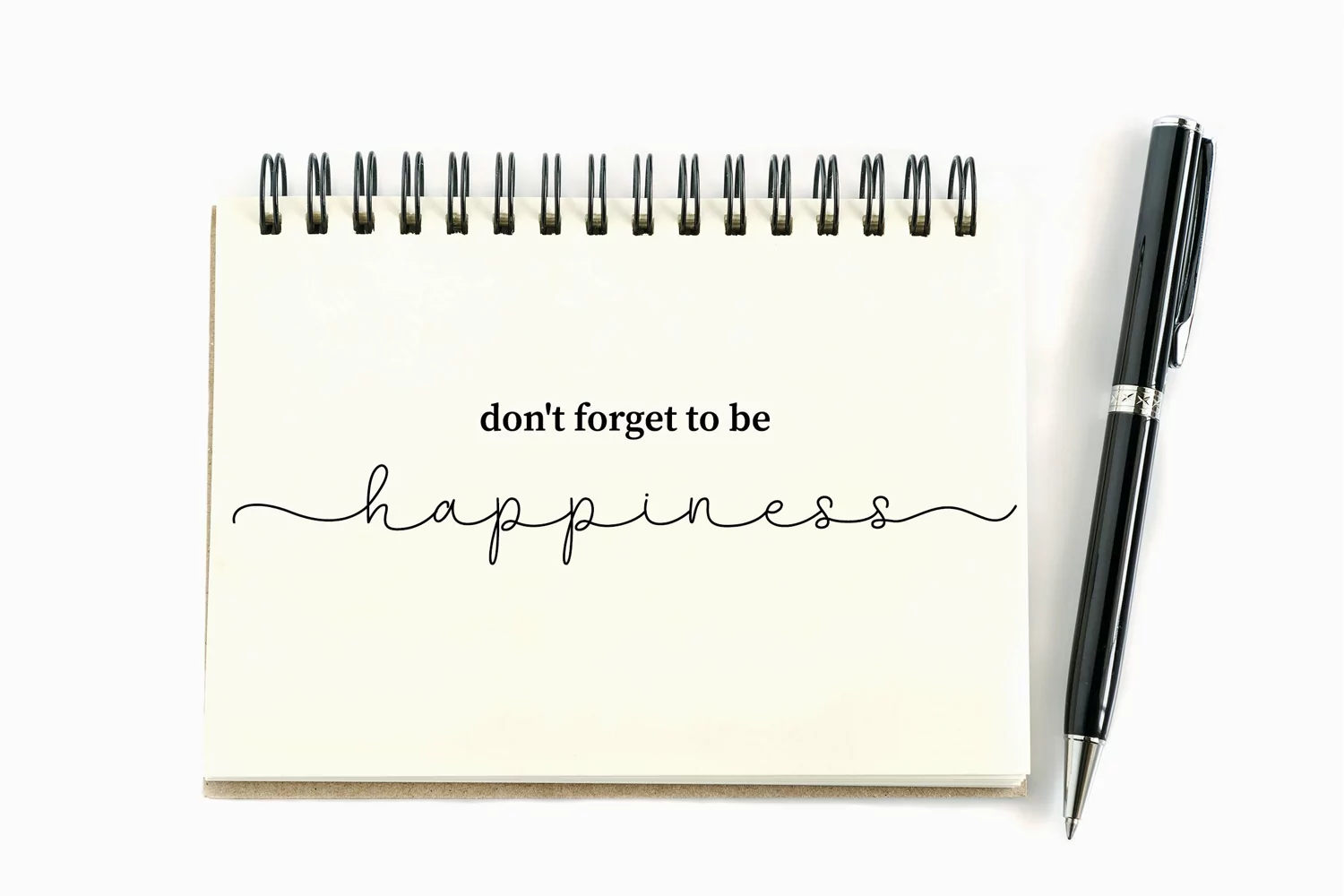
Ballpoints Monoline Script
Lifelism script a sweet and romantic script with feminine lines and well balance letters. perfect for you up coming projects. such as modern invitation design, branding stationery design, wedding, birthday, etc and any projects.